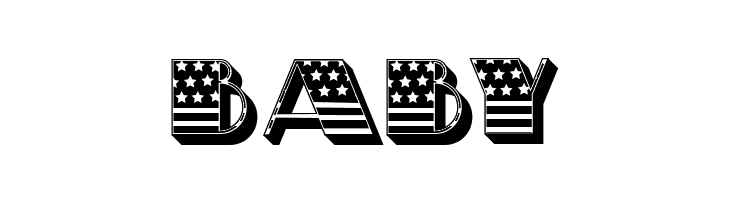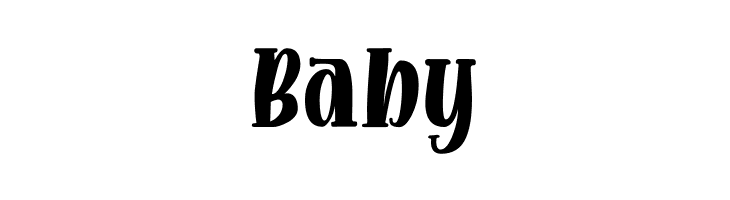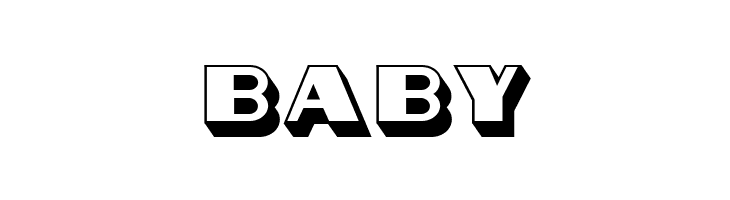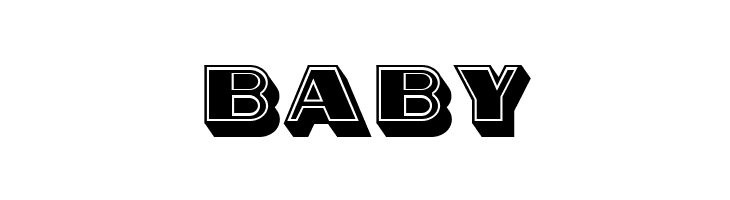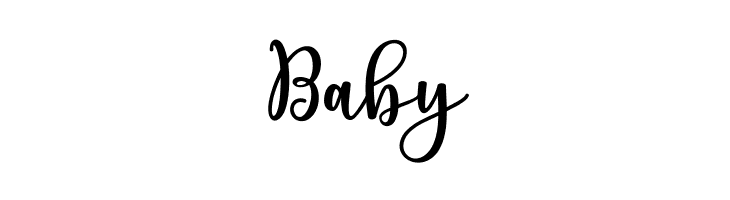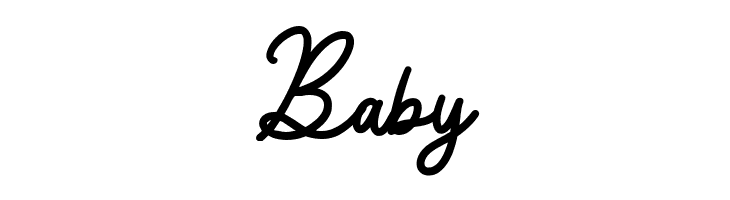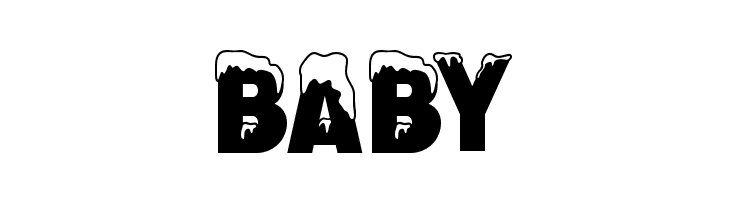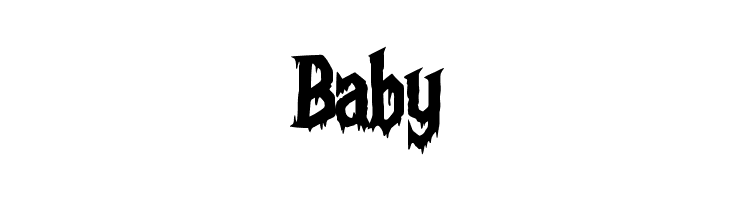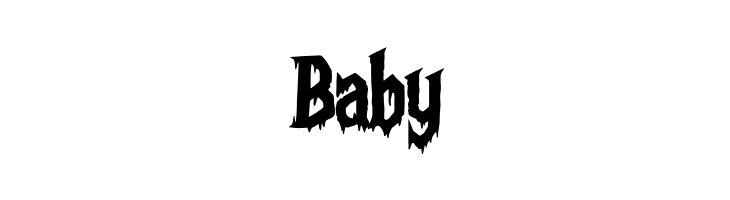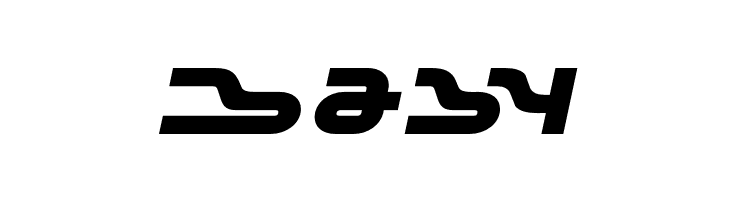
A playful, handwritten-style font with consistent stroke thickness and rounded edges.
A lively, flowing script font with elegant, connected letterforms and bold strokes.
A playful script font with decorative polka dot accents and dynamic strokes.
A bold, playful font with thick, irregular strokes and a hand-drawn feel.
A playful, bold font with a chunky, irregular style and a whimsical, hand-drawn appearance.
A jagged, horror-themed font with sharp, irregular edges.
A spooky, jagged font ideal for horror themes.
A lively and expressive script font with fluid, dynamic strokes.
A bold, elegant script font with flowing curves and high contrast.
A bold, impactful font with thick strokes and a slightly condensed appearance.
A bold, geometric stencil font with sharp, angular lines and cut-out sections.
A bold, outlined font with a modern and playful aesthetic.
A bold, shadowed font with thick, blocky letters and a three-dimensional effect.
A bold, shadowed font with a strong, three-dimensional look.
A lively, expressive script font with fluid cursive strokes and elegant loops.
A flowing, cursive script font with elegant loops and smooth connections.
A bold, festive font with snow-capped uppercase letters.
A futuristic, bold font with geometric shapes and smooth curves.
A bold, 3D font with shadow effects, perfect for impactful headlines.
A bold, three-dimensional font with strong shadow effects and a modern, playful style.
An elegant, flowing script font with a dynamic italic style.
A playful and whimsical font with bold, exaggerated curves and loops.
A playful and artistic script font with fluid, cursive strokes and elegant loops.
A playful, hand-drawn font with bold, rounded characters.
A bold, hand-drawn font with a playful and whimsical style.
A bold, playful font with rounded edges and a modern style.
A bold, italicized font with a playful and dynamic style.
A bold, italic font with a dynamic and modern style.
A bold, playful font with modern and retro elements, featuring dynamic letterforms.
A bold, decorative font with a 3D shadow effect and geometric structure.
A bold, decorative font with stars and stripes, evoking a patriotic theme.
A bold, decorative font with intricate geometric patterns and a vintage flair.
A playful, bold, and whimsical font with a hand-drawn appearance.
A quirky, head-themed decorative font with pixel art illustrations for each character.
A playful and bold font with whimsical curves and a lively personality.